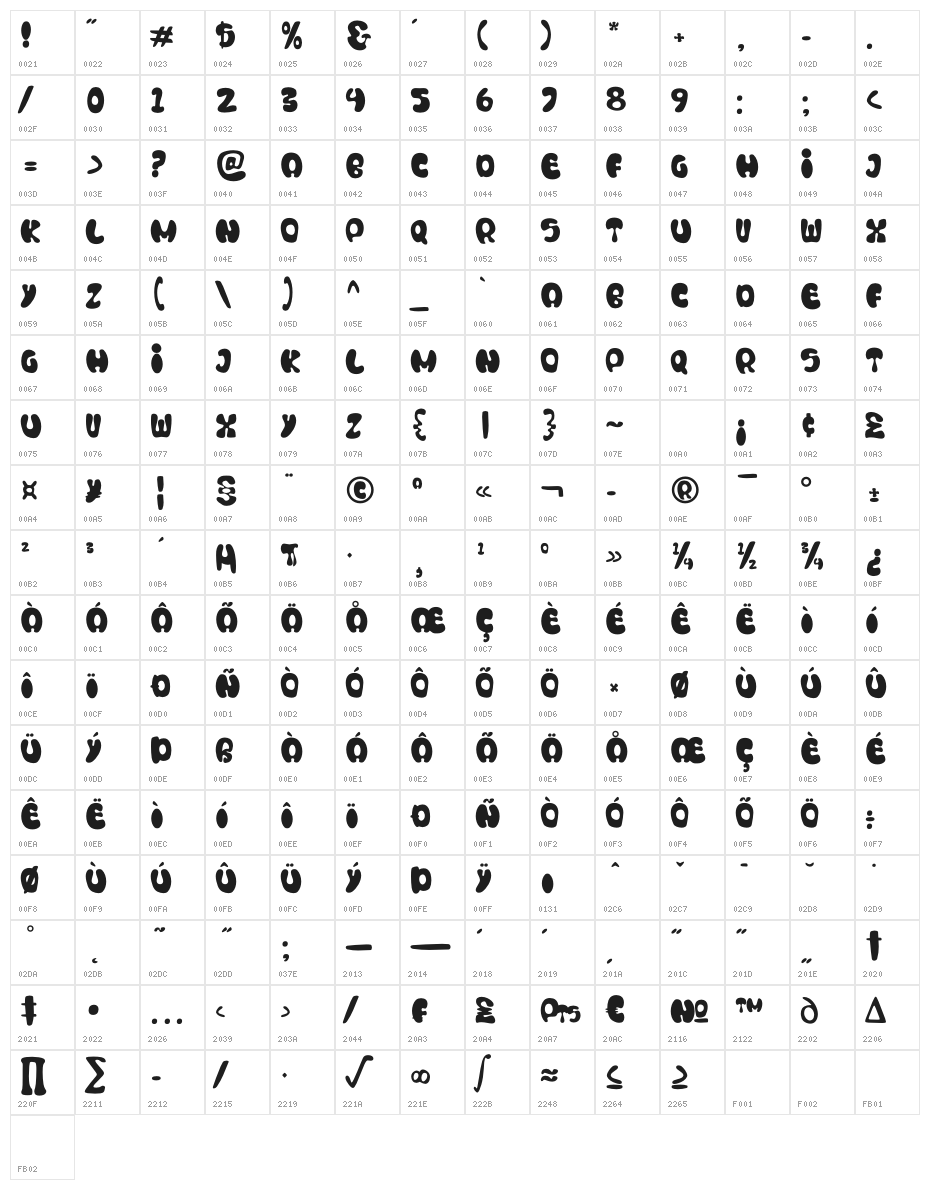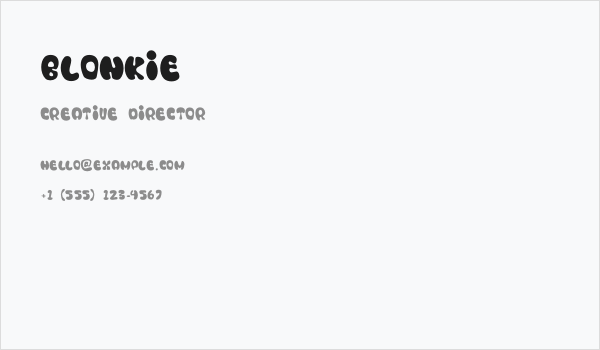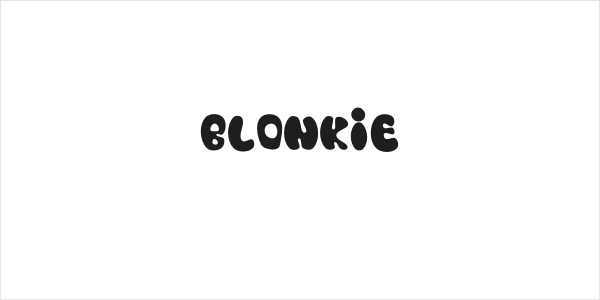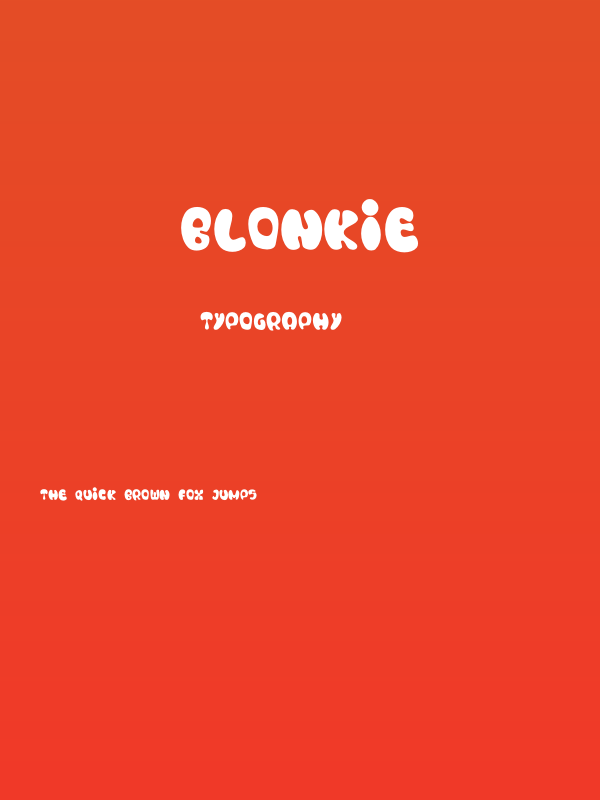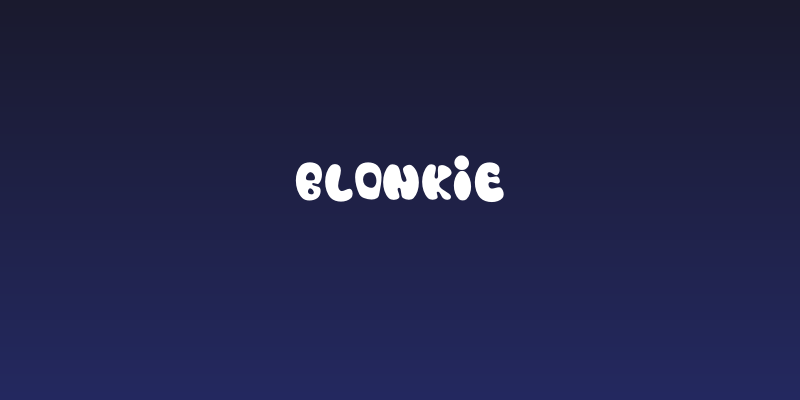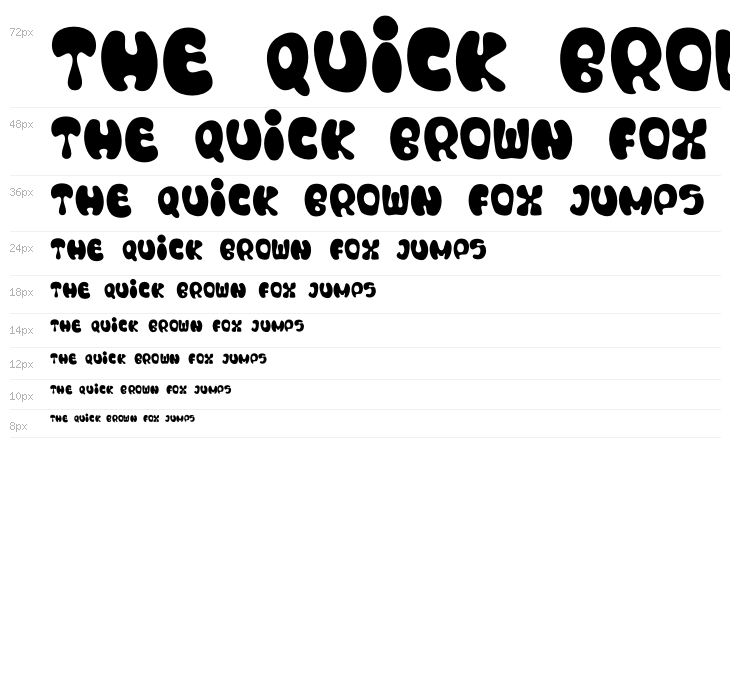
Blonkie Font
Blonkie Description
This font features a playful and bold design with rounded, bubbly characters that convey a sense of fun and creativity. The letters are thick and have a uniform stroke width, giving them a cohesive and solid appearance. The overall style is reminiscent of retro or vintage designs, making it suitable for projects that aim to capture a nostalgic or whimsical feel. The characters are well-spaced, ensuring readability despite their unique shapes. This font includes a full set of uppercase and lowercase letters, numbers, and a variety of special characters, making it versatile for different design needs.
| Proposed Projects | Ideal for children's books, playful branding, posters, and retro-themed designs. |